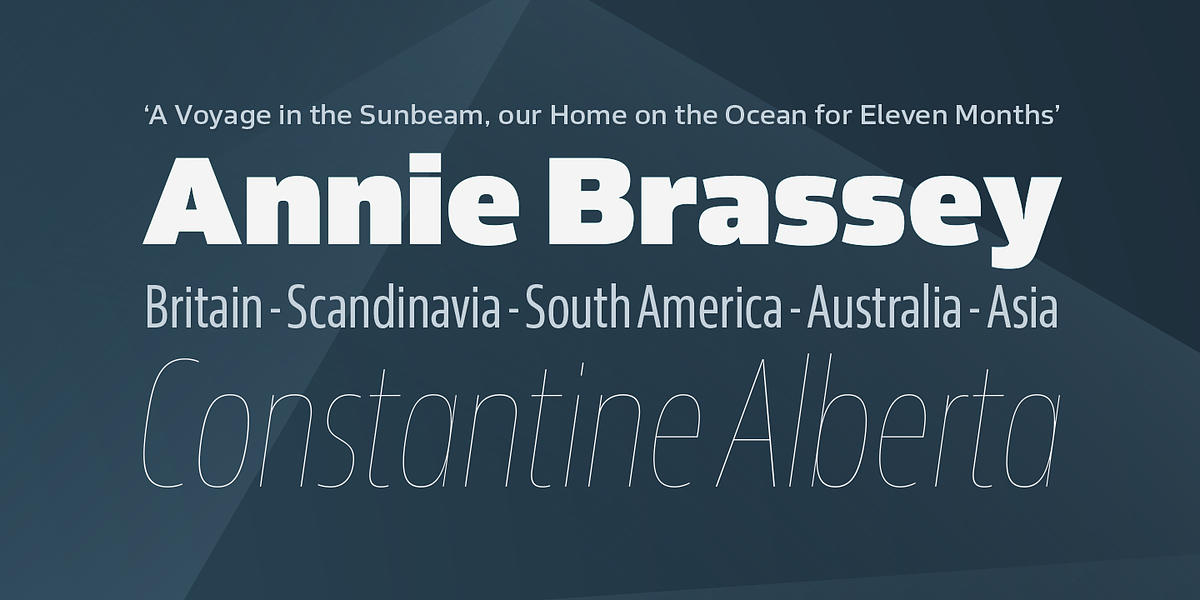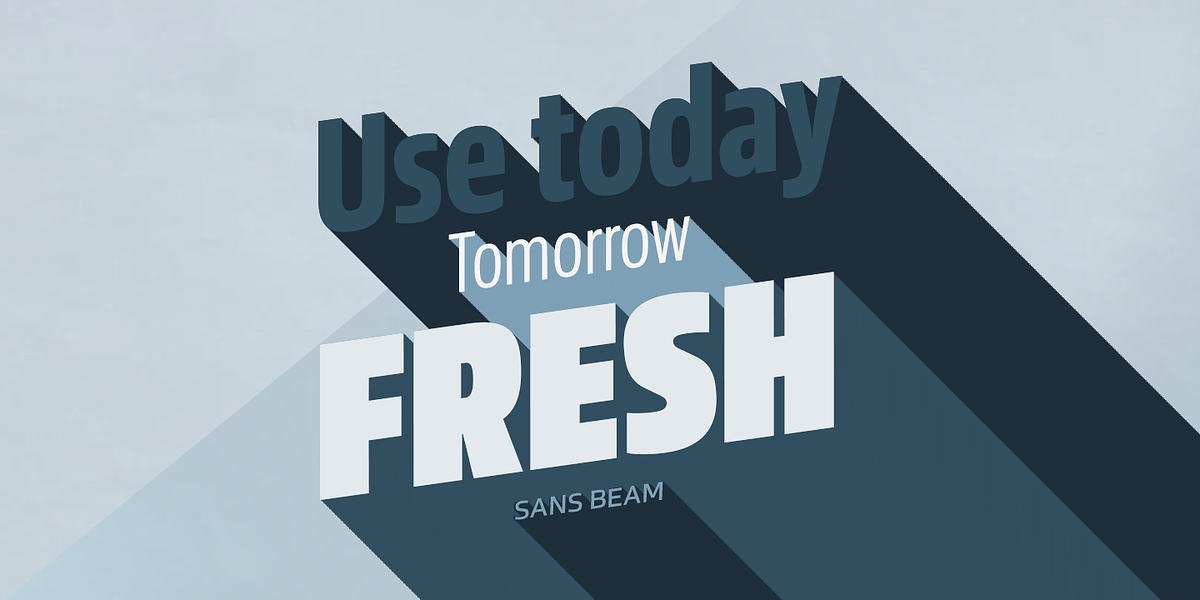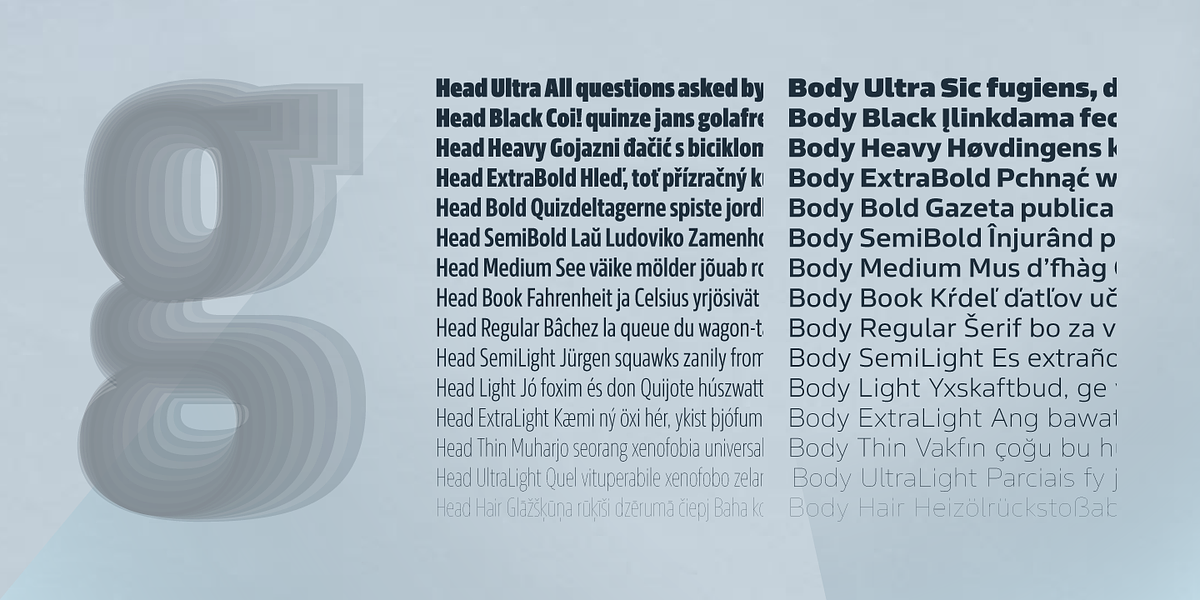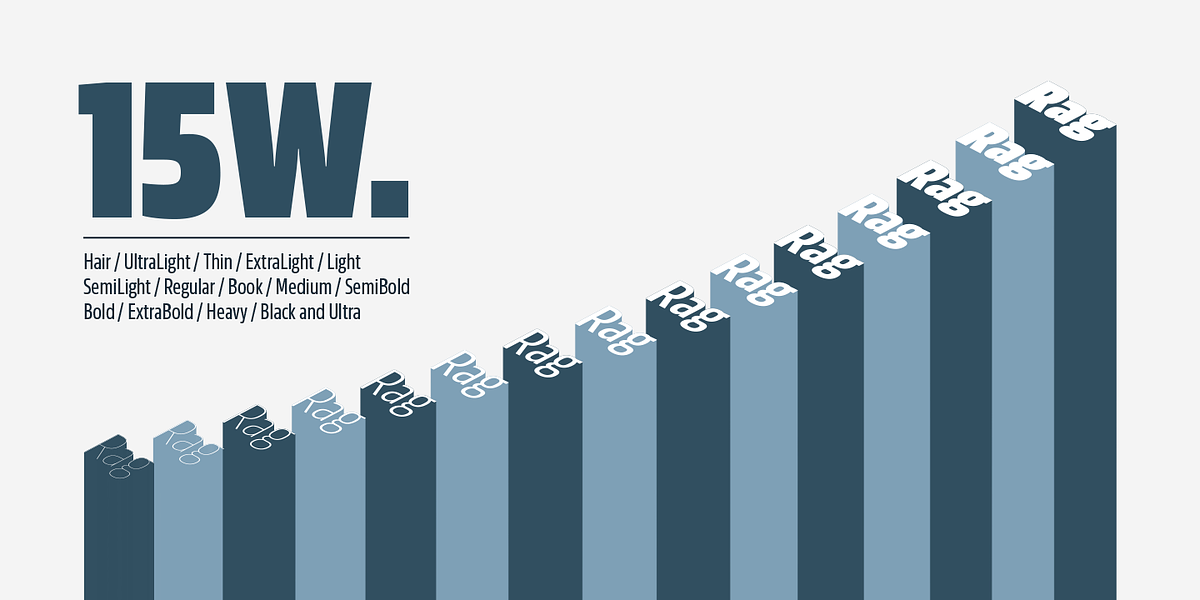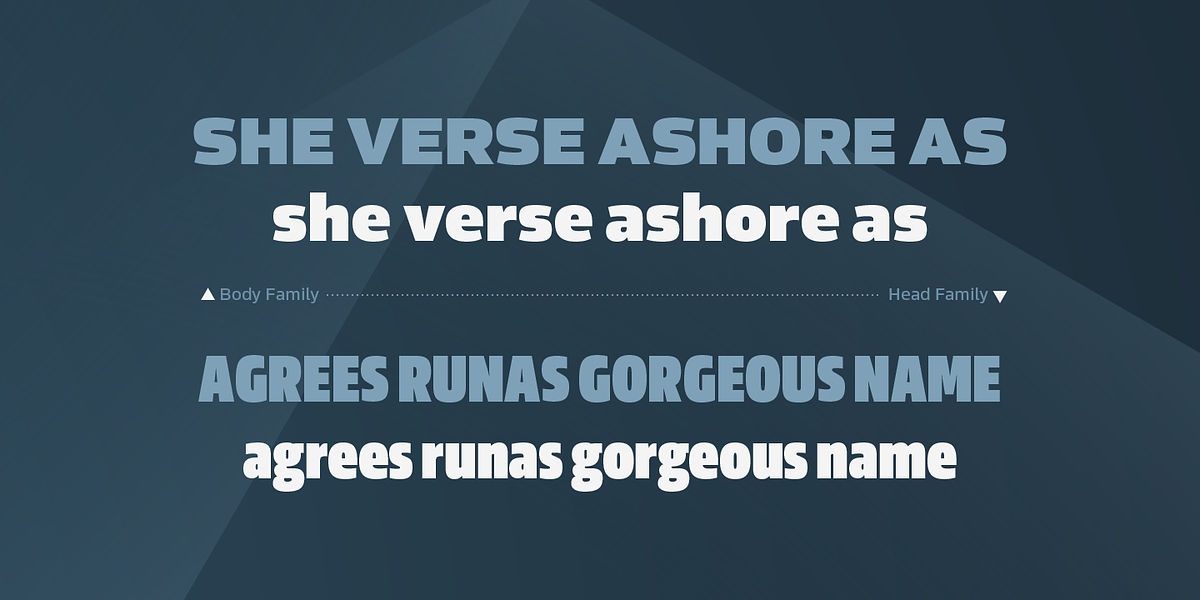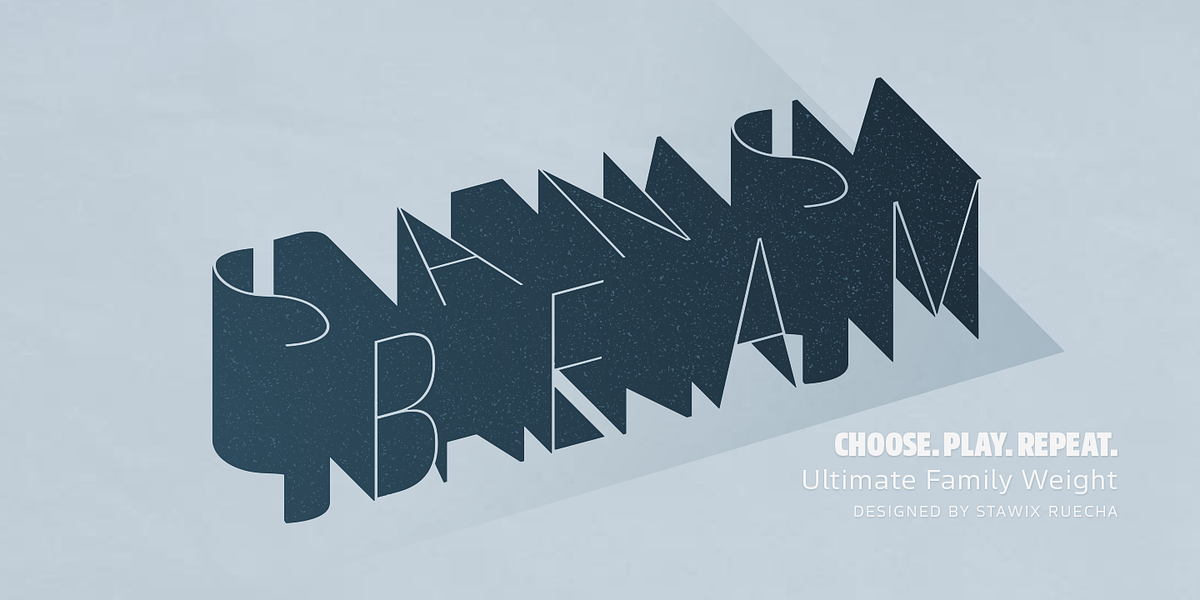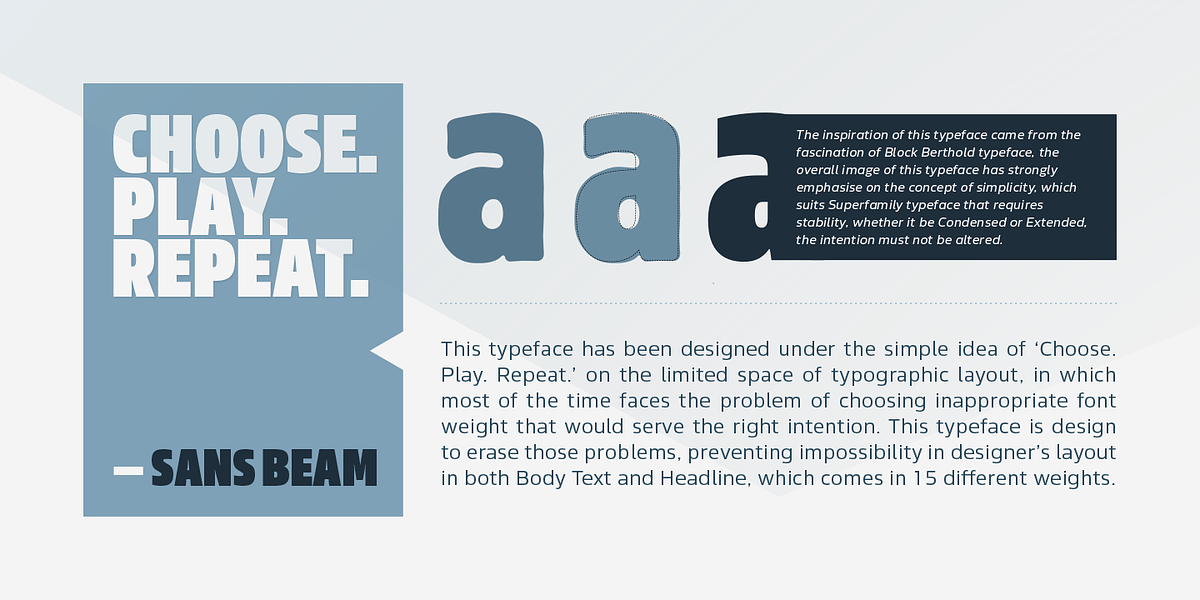
Sans Beam
Sans Beam is a neo-humanist sans serif typeface designed for versatility. It offers two versions: one optimized for body text and another for headlines. Each version includes 15 weights with matching italics, allowing for nuanced typographic expression.